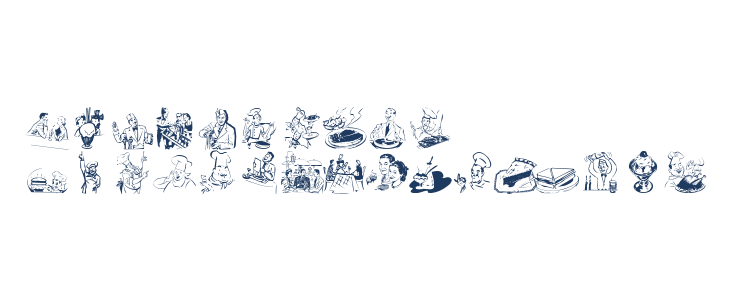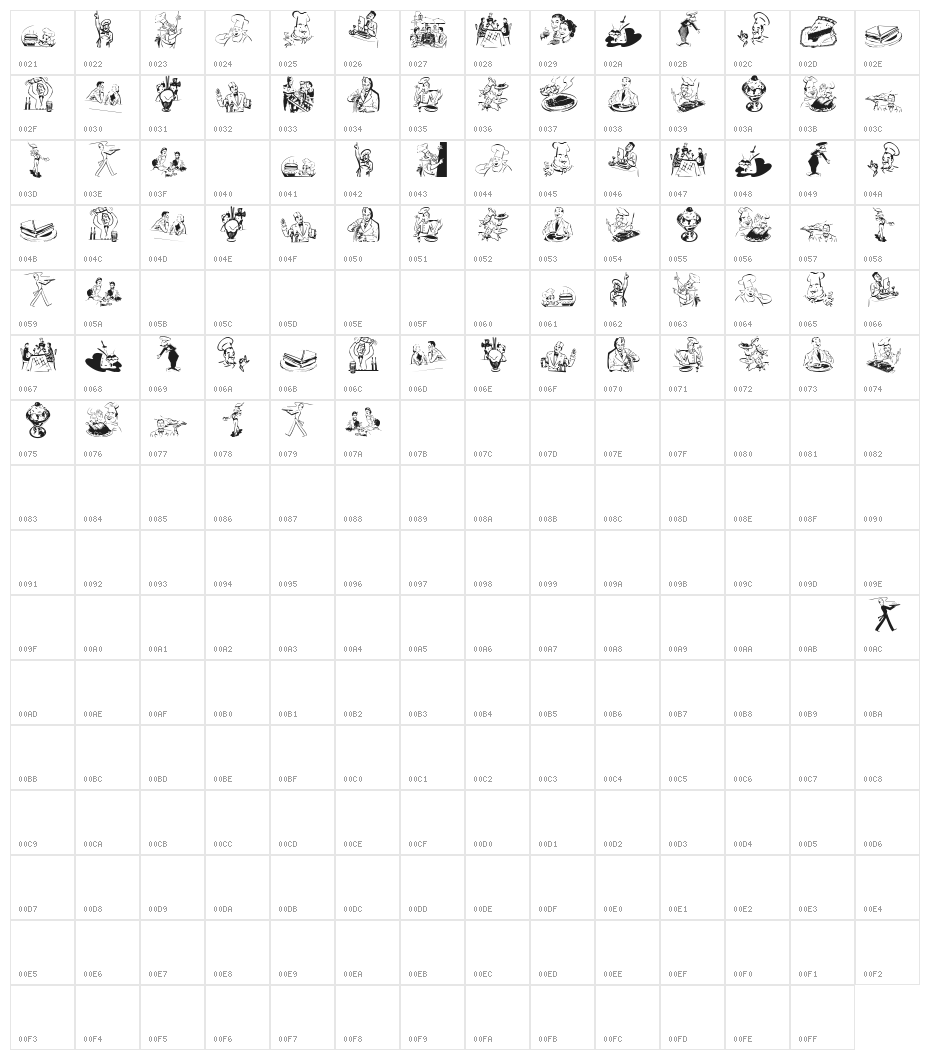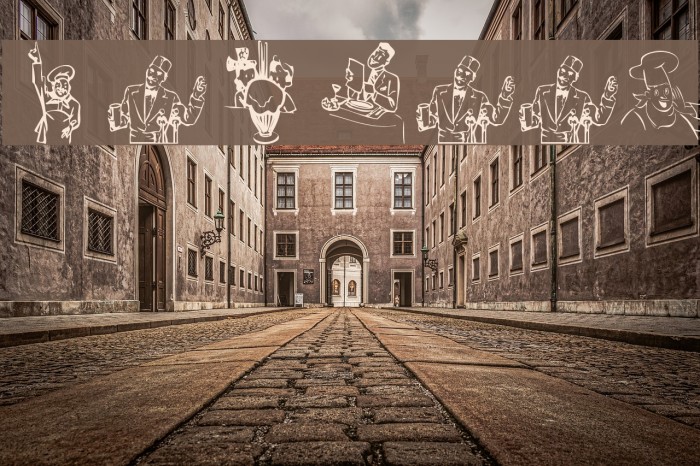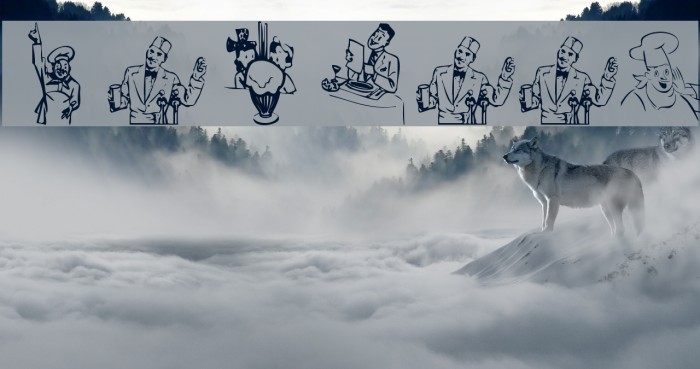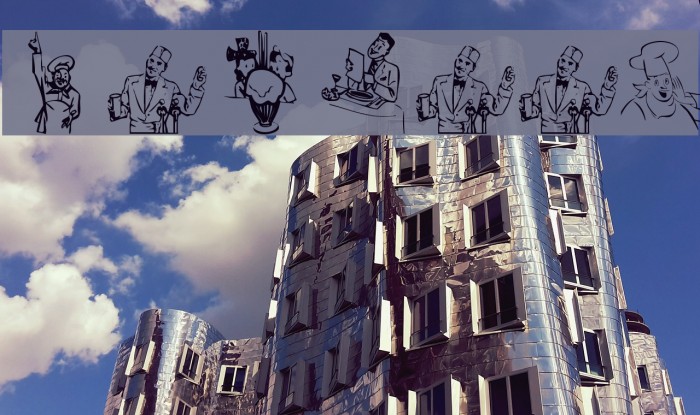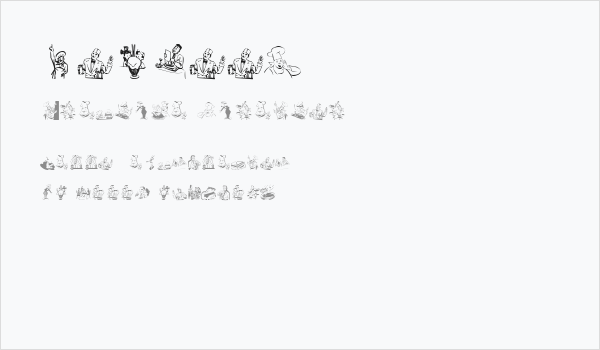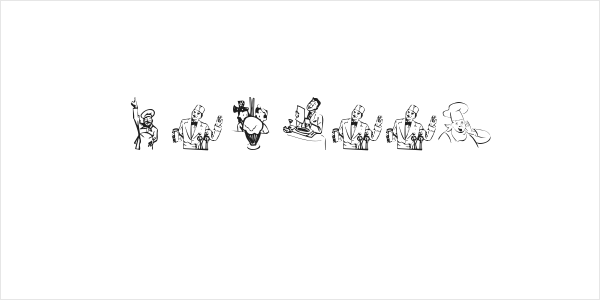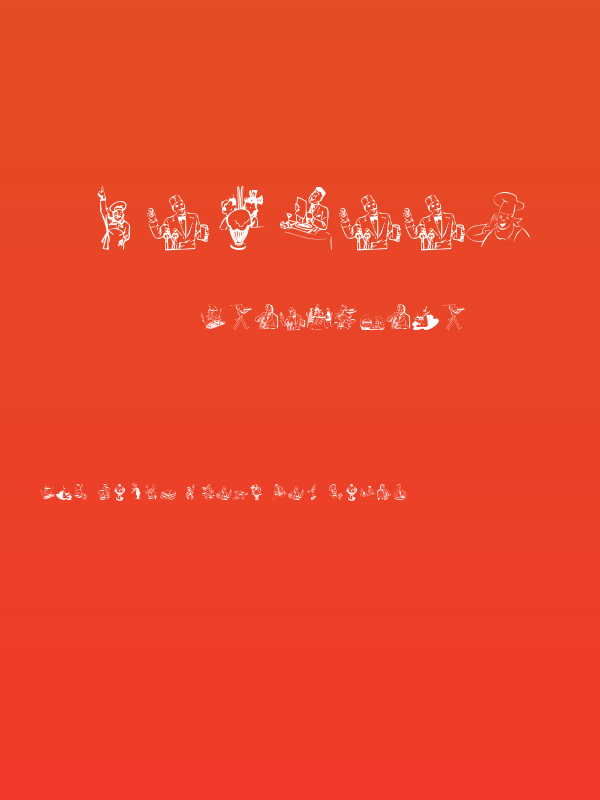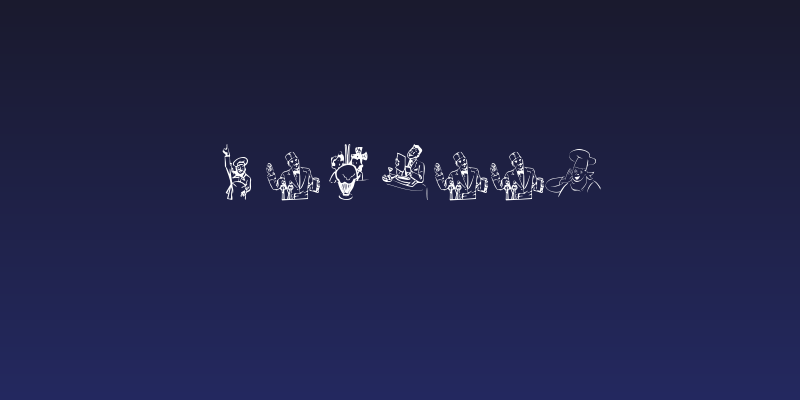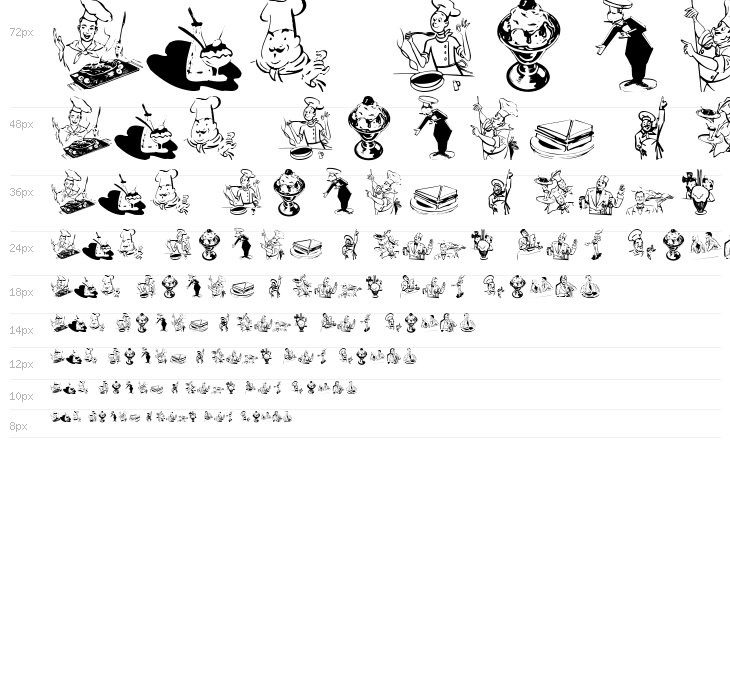
BonFood Font
BonFood Description
A playful, illustrative font composed of hand-drawn cartoon characters and food-related scenes, each glyph represented by a unique sketch rather than traditional letterforms. The style is whimsical, energetic, and highly decorative, with varying line thickness and expressive poses.
| Overall Style | Decorative, Whimsical, Playful |
| Use Case | Logos, Headlines, Posters, Themed Menus |
| Proposed Projects | Restaurant branding, food festival posters, children's menus, culinary event invitations, playful packaging. |